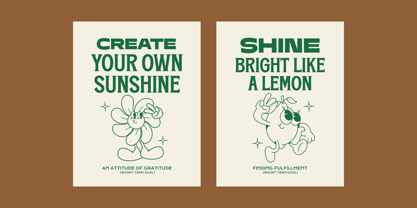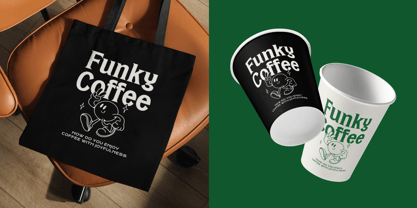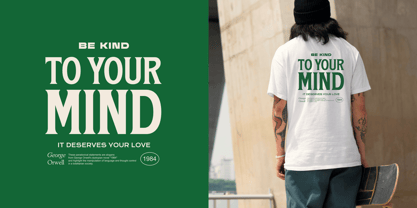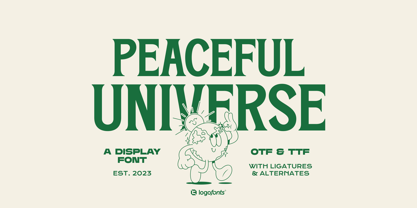
Peaceful Universe
by Logofonts
The Peaceful Universe Font Family was designed by Anna Safitri and published by Logofonts. Peaceful Universe contains 1 styles. More about this family
Peaceful Universe is a vintage-inspired serif typeface that brings a classic, timeless feel to your designs. With its bold serifs, balanced letterforms, and subtle vintage details, this font captures the essence of traditional print and retro aesthetics.
Perfect for branding, packaging, editorial layouts, and posters, Peaceful Universe adds character and charm to both modern and nostalgic projects. Its clean yet distinctive look makes it versatile and easy to use across a range of creative styles.
Whether you're going for an old-school vibe or simply want to add a touch of elegance, Peaceful Universe is a reliable choice for making your work stand out.